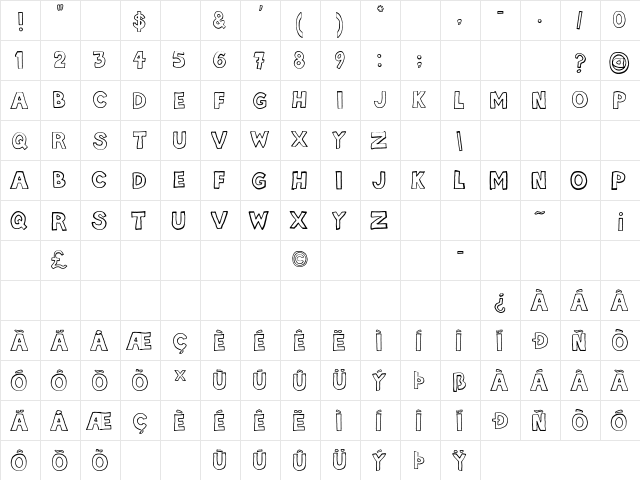
hellafont Regular
| Designer | kirk shelton |
Design Context for hellafont Typeface
hellafont is a composed and adaptable typeface that performs quietly and consistently across a wide range of design contexts.